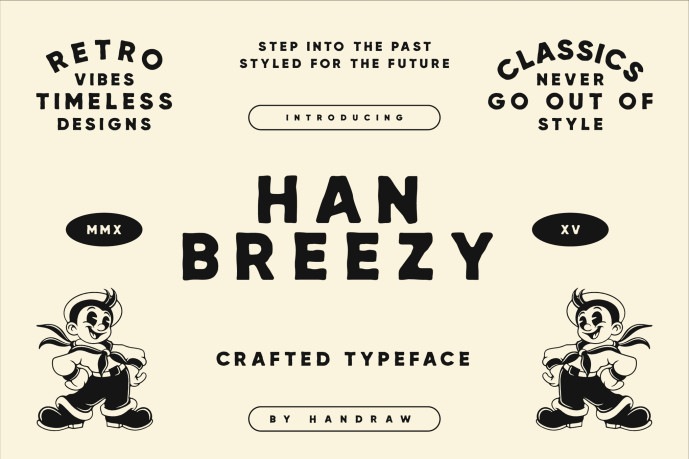
Breezy – Retro Display Font
Breezy – Retro Display Font is a beautifully crafted typeface that captures the essence of vintage design with a unique hand-drawn flair. Inspired by the past but with a timeless charm, this font blends retro aesthetics with a touch of modern versatility. Each character is meticulously crafted to evoke nostalgia, with intricate details and flowing lines that bring a sense of personality and warmth. Perfect for projects that require a vintage touch, whether for branding, posters, logos, or creative designs, the Sky Retro Font adds character and authenticity to any design. Its playful yet sophisticated appeal makes it ideal for both casual and formal projects, evoking a sense of creativity and nostalgia.